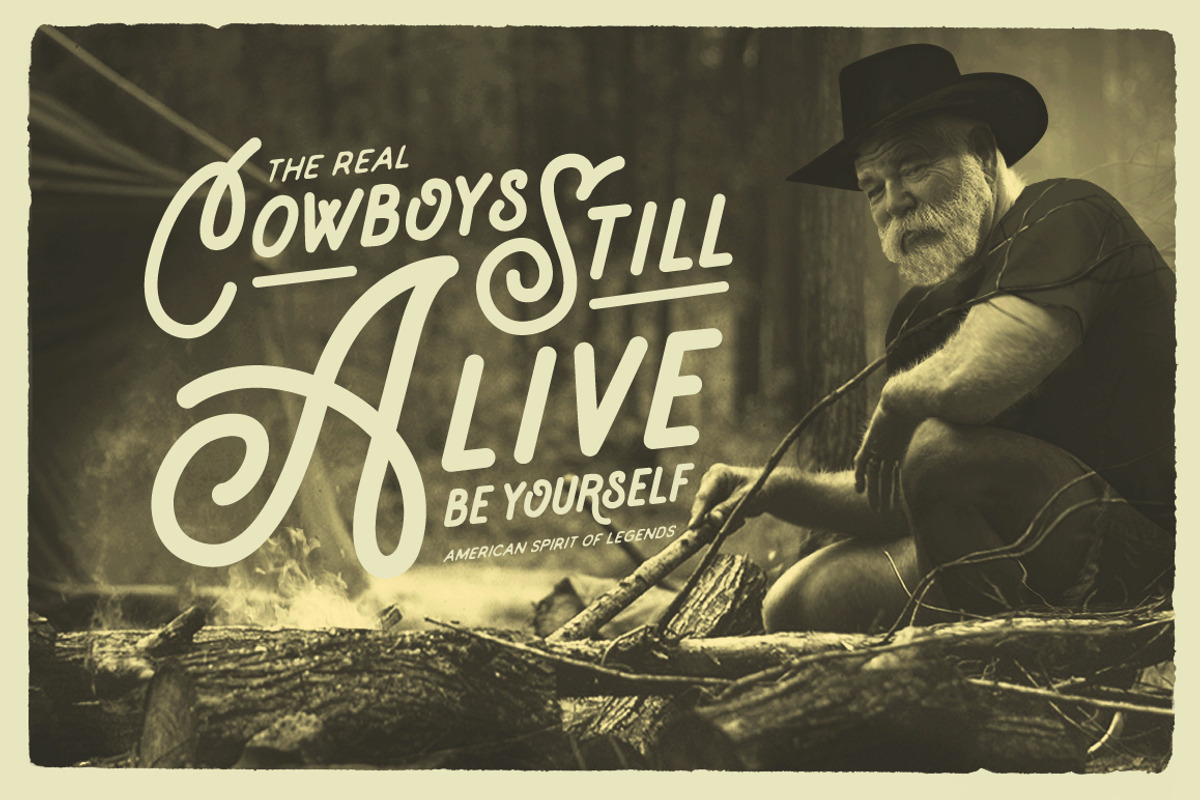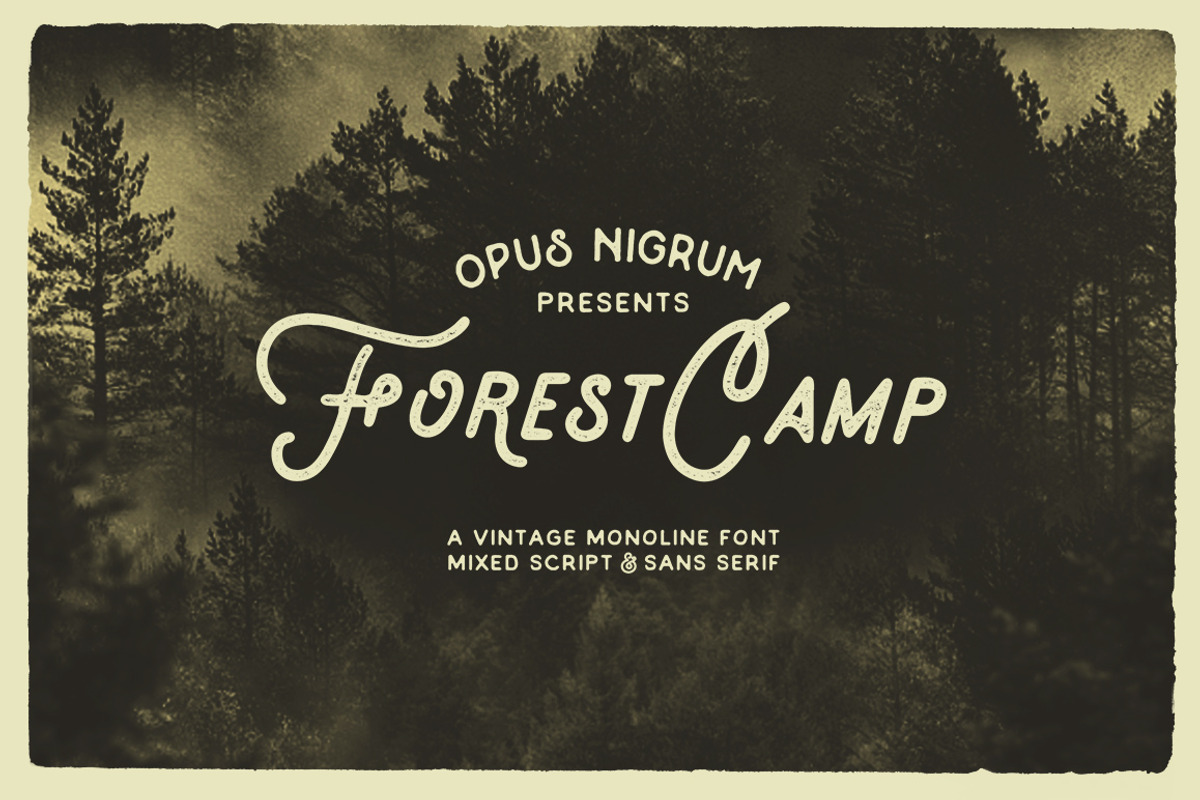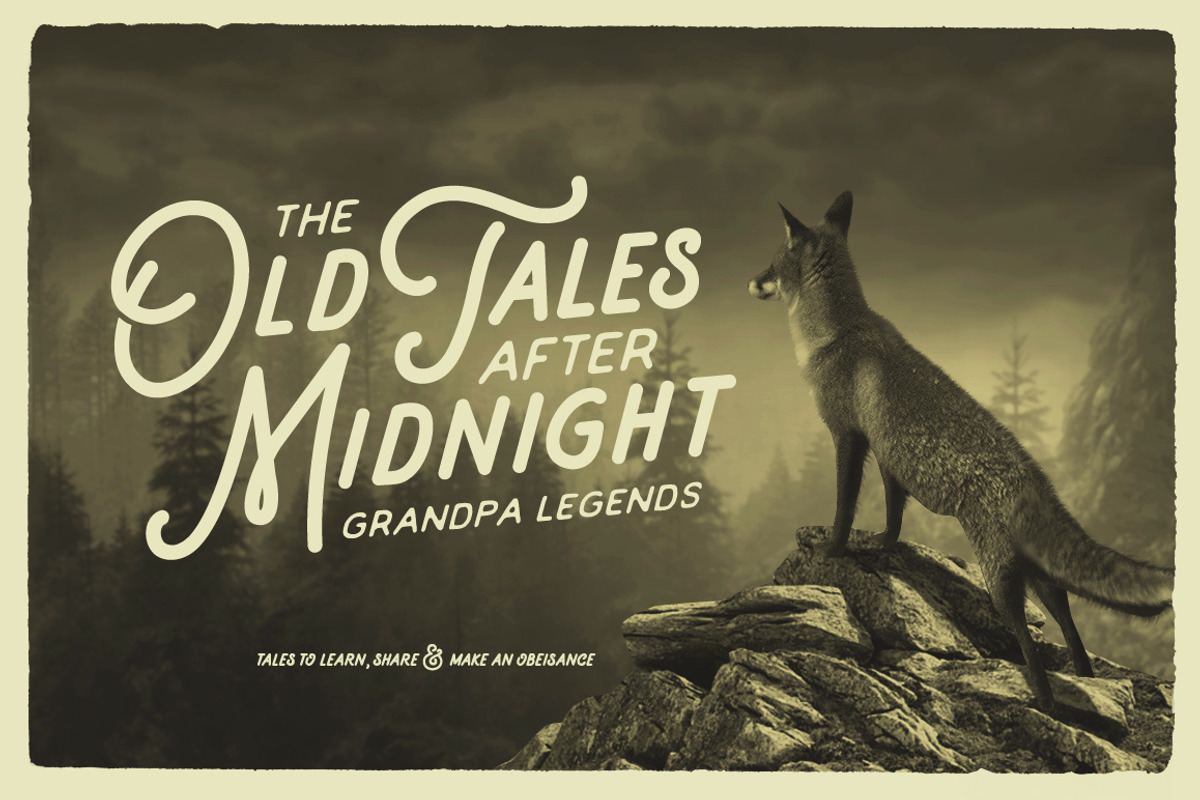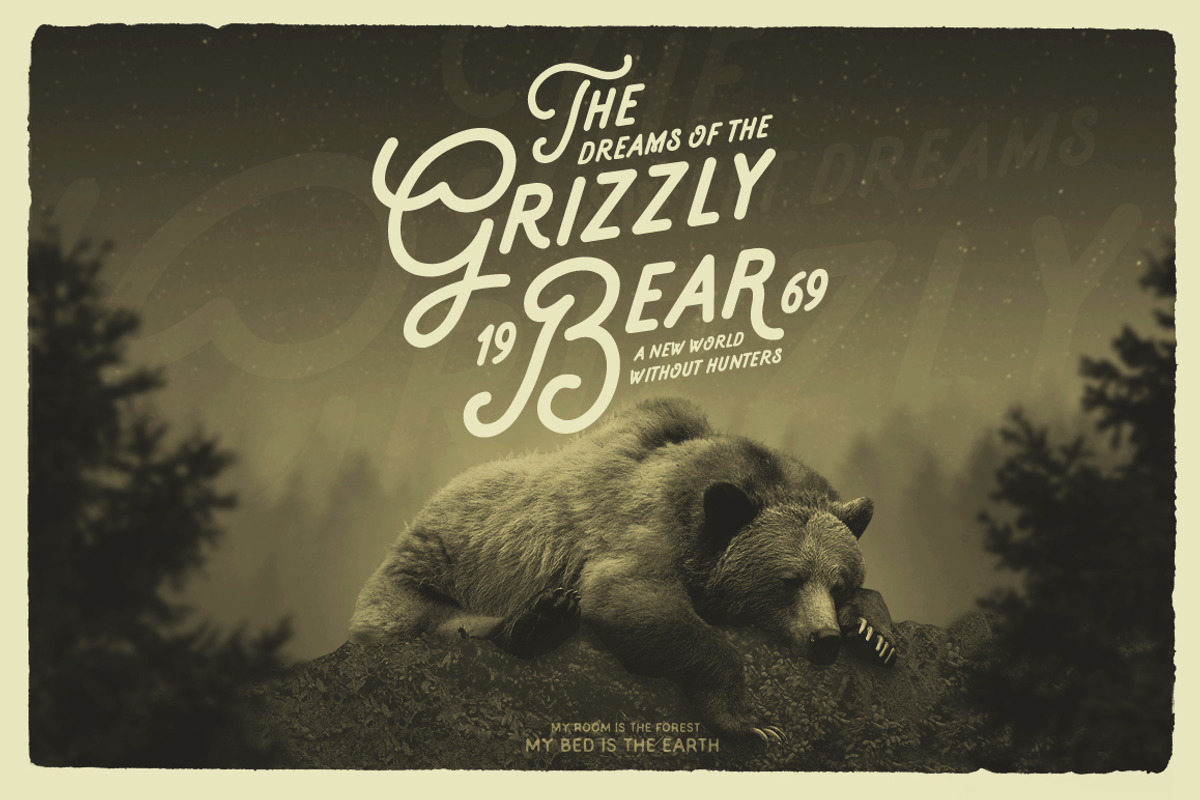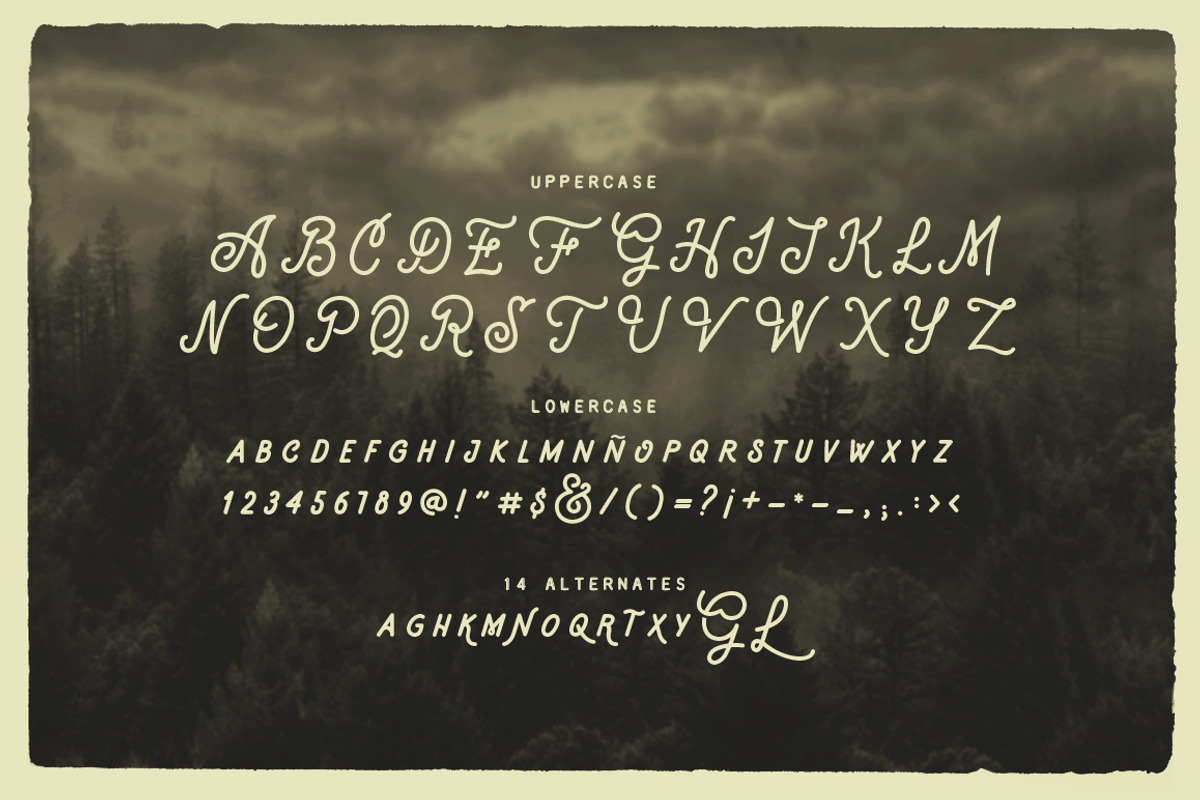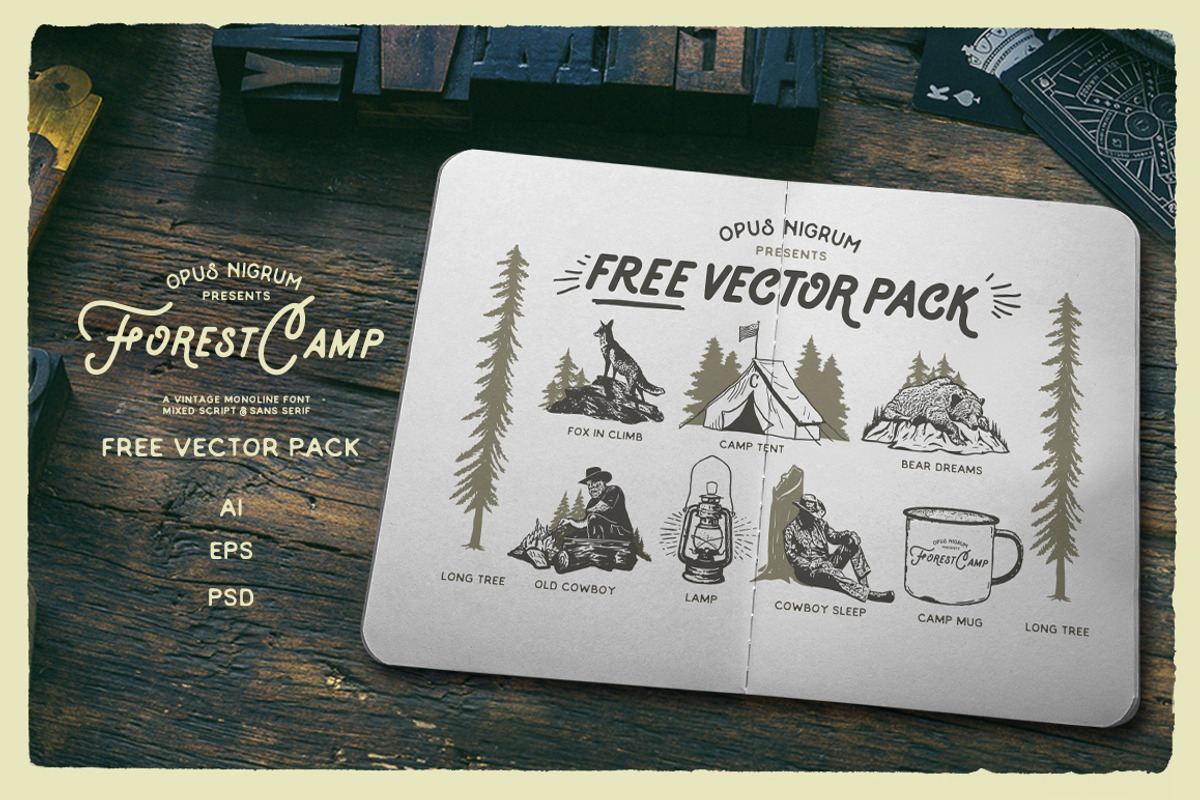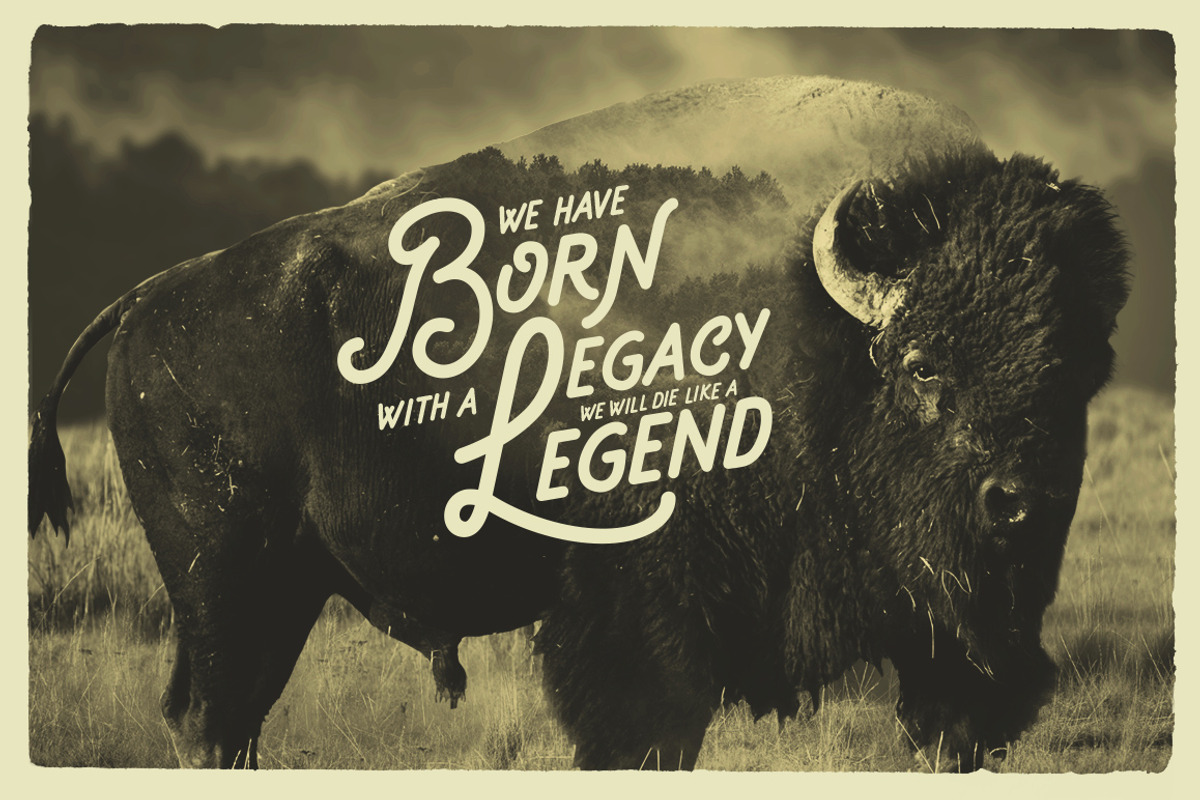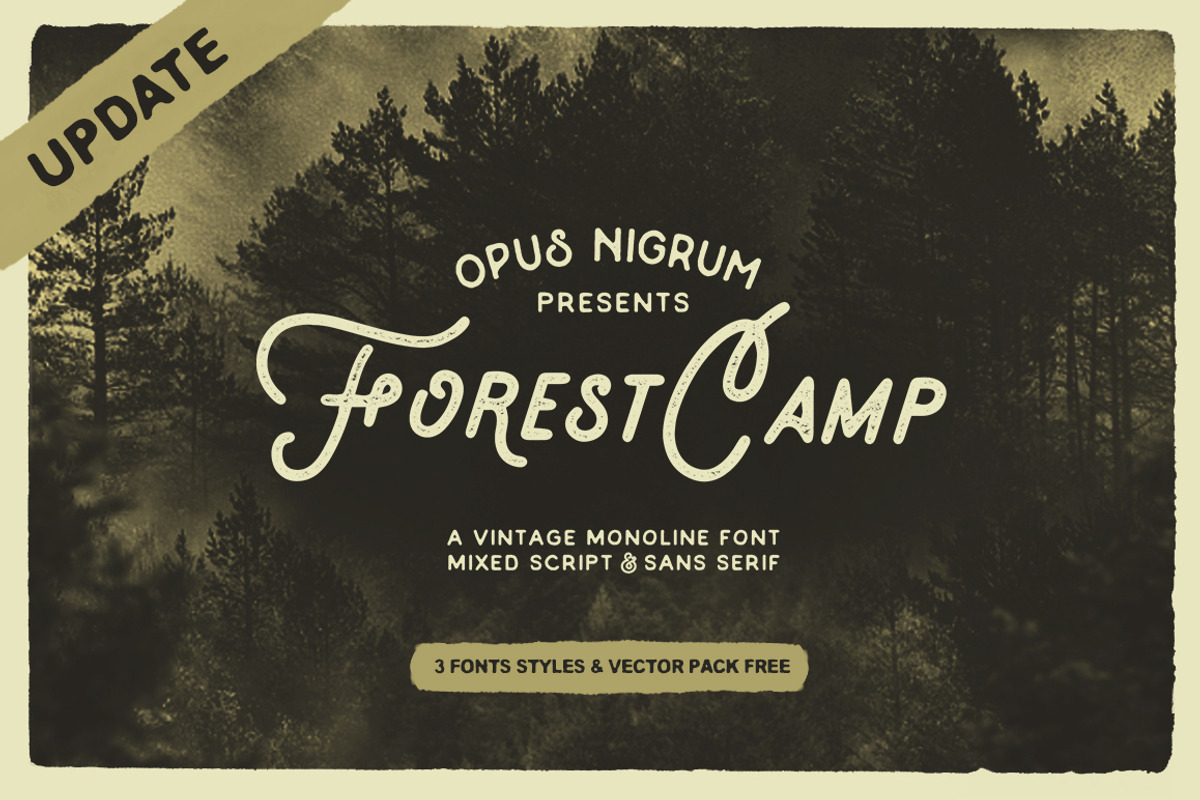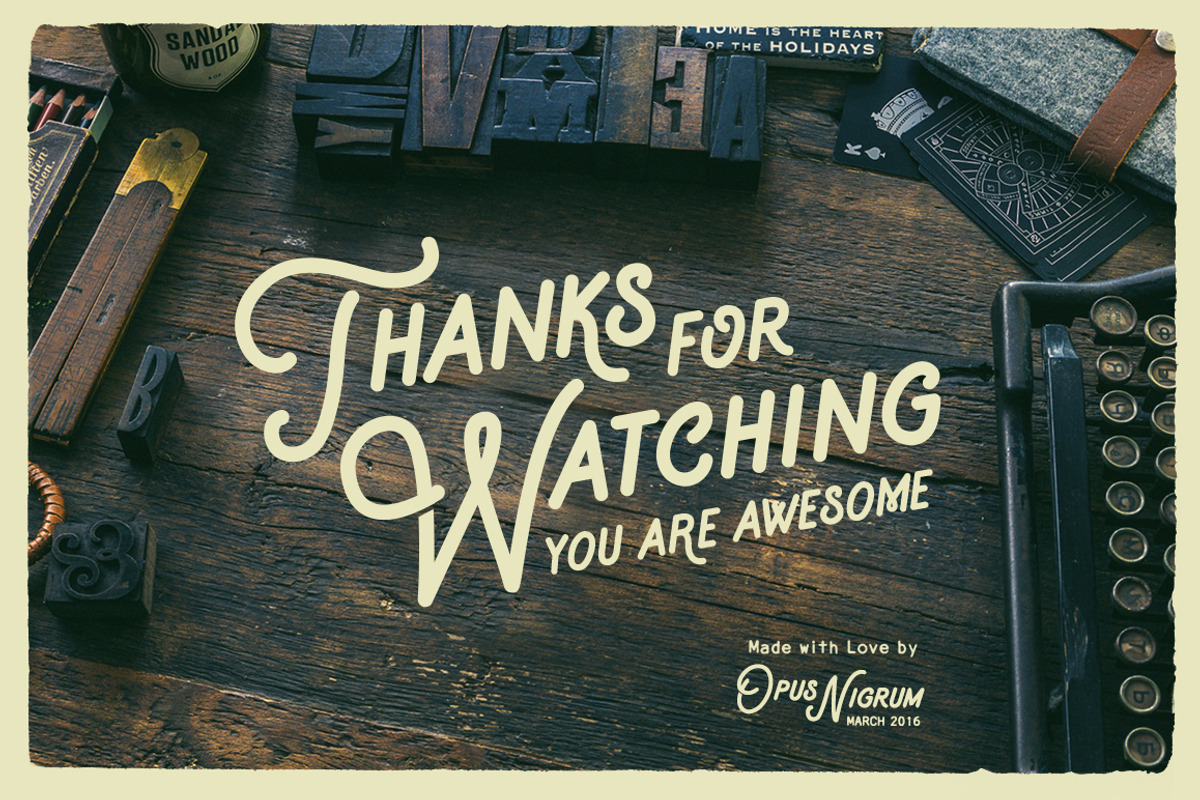
Forest Camp Font + Free Vector Pack
Forest Camp Font It is an imperfect font. Mixing uppercase in script and sans in lowercase. Created entirely by hand, inspired by the forest and nature. With a great retro look. Ideal for use in logos, lettering, quotes, cards, flyers or anything you want.